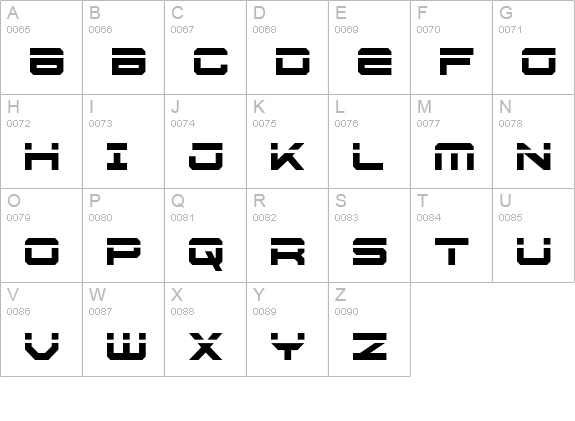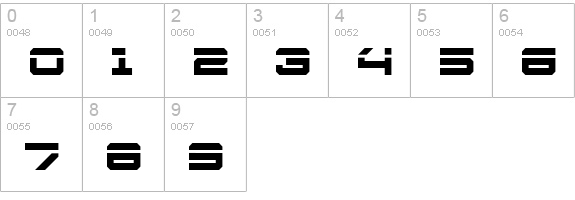
The U.S.S. Dallas Laser font is a striking and futuristic typeface that is sure to make a bold statement in any design project. With its sleek lines and sharp edges, this font exudes a sense of modernity and sophistication. The laser-like appearance of the letters adds a touch of high-tech flair, making it perfect for projects that require a cutting-edge aesthetic. What sets the U.S.S. Dallas Laser font apart is that it is available for free download at FontsMarket.com. This means that you can easily access this unique and eye-catching font without any cost, making it a valuable addition to your font collection. Whether you're working on a poster, logo, website, or any other design project, the U.S.S. Dallas Laser font is sure to help your creations stand out from the crowd. Download the U.S.S. Dallas Laser font today and unleash its futuristic charm in your designs!